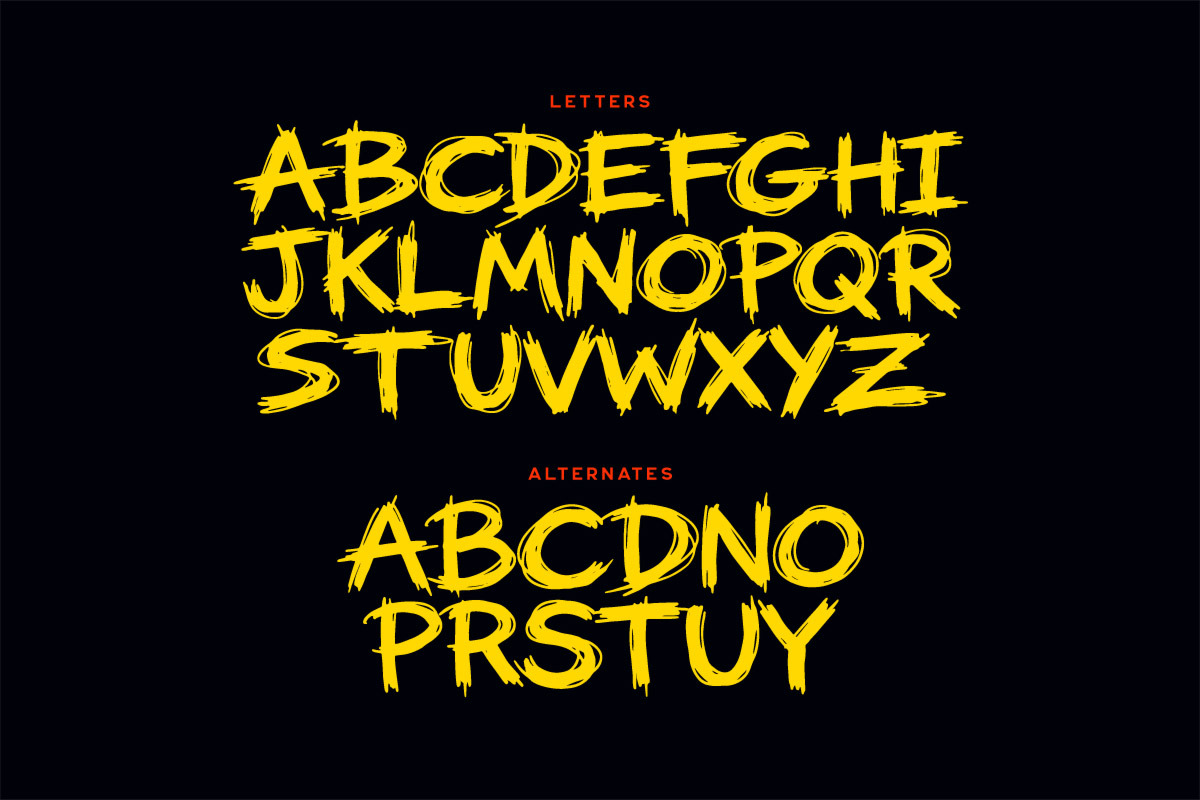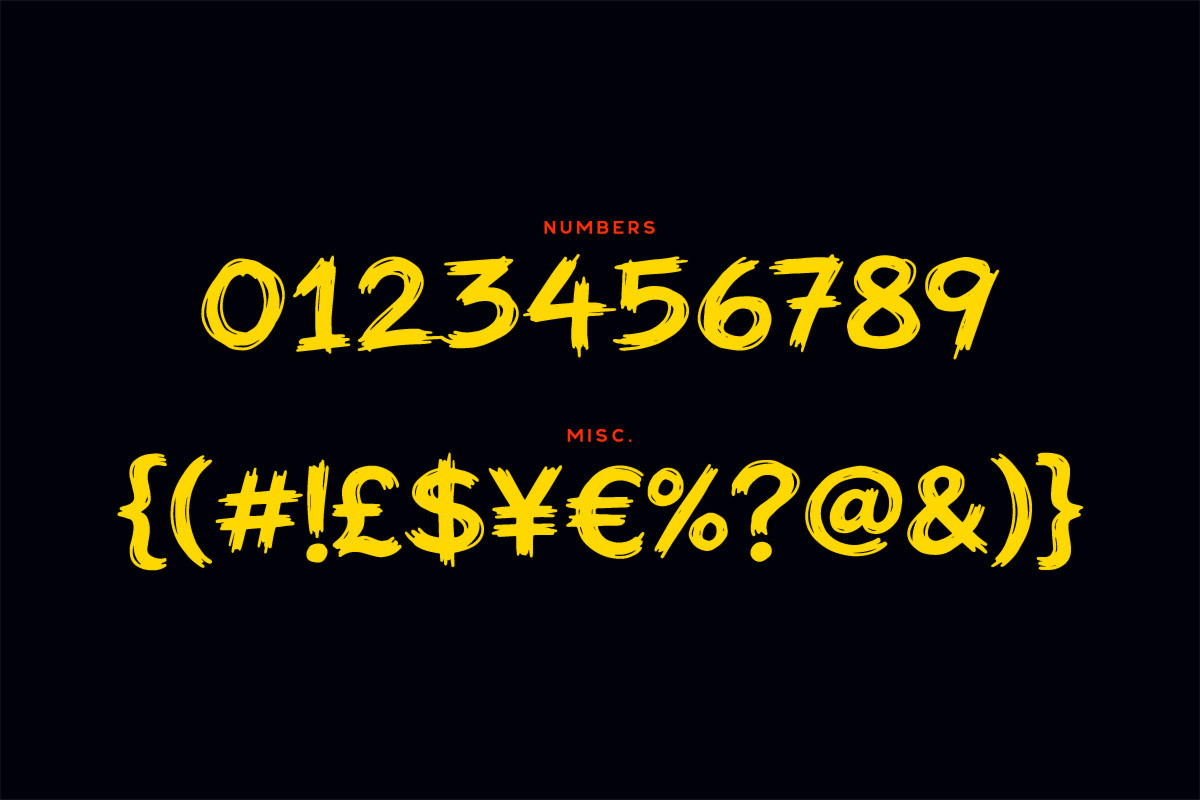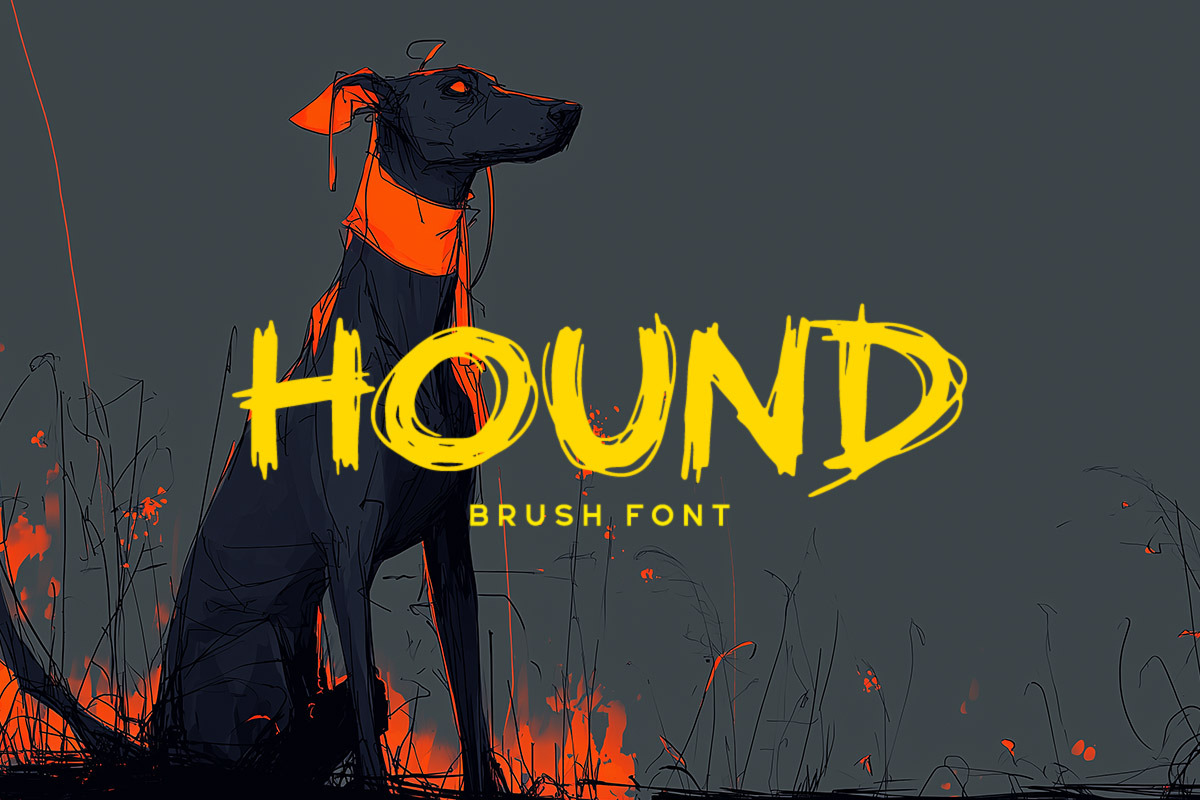
Hound Typeface
Hound is a bold all-caps brush display font with rough texture and aggressive hand-painted energy. Perfect for gaming titles, action posters, streetwear logos, album covers, and edgy branding that needs maximum impact.